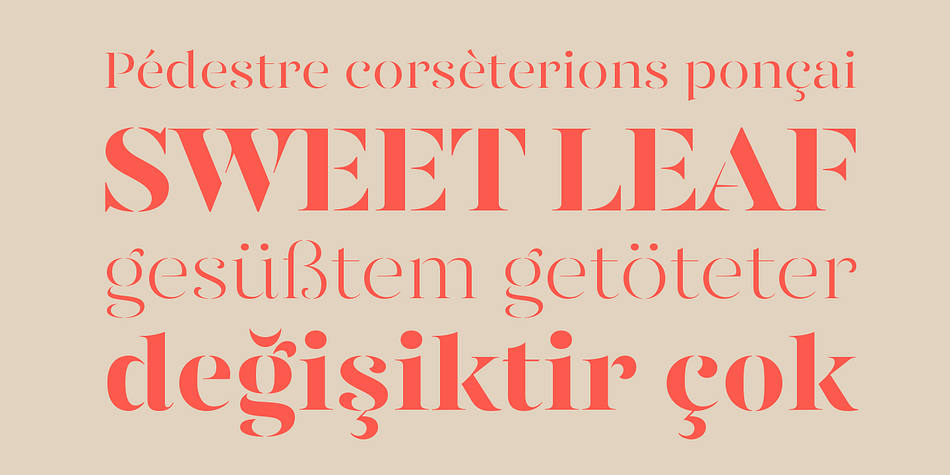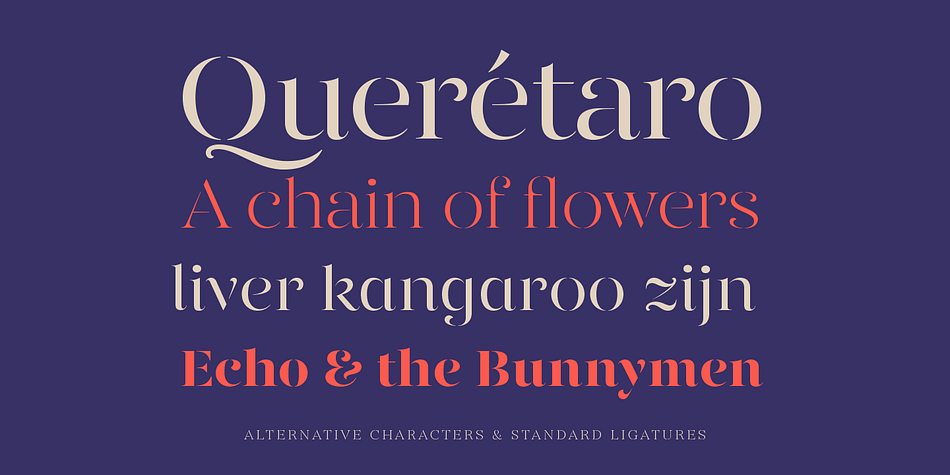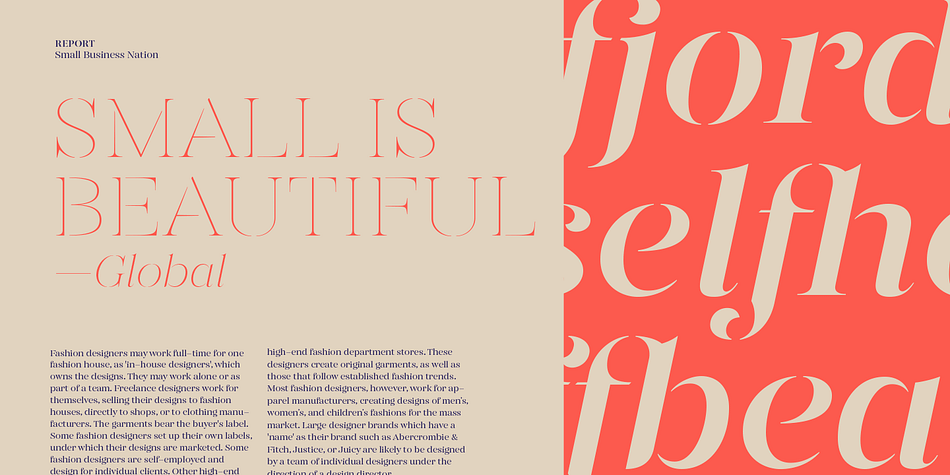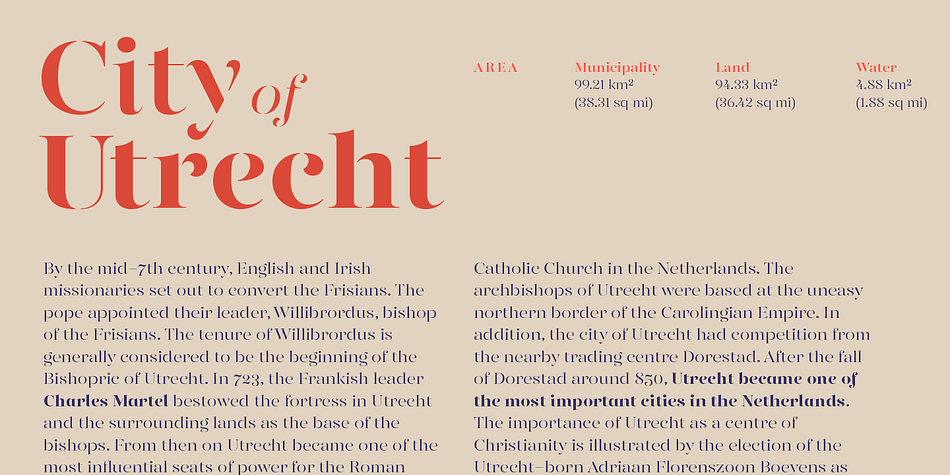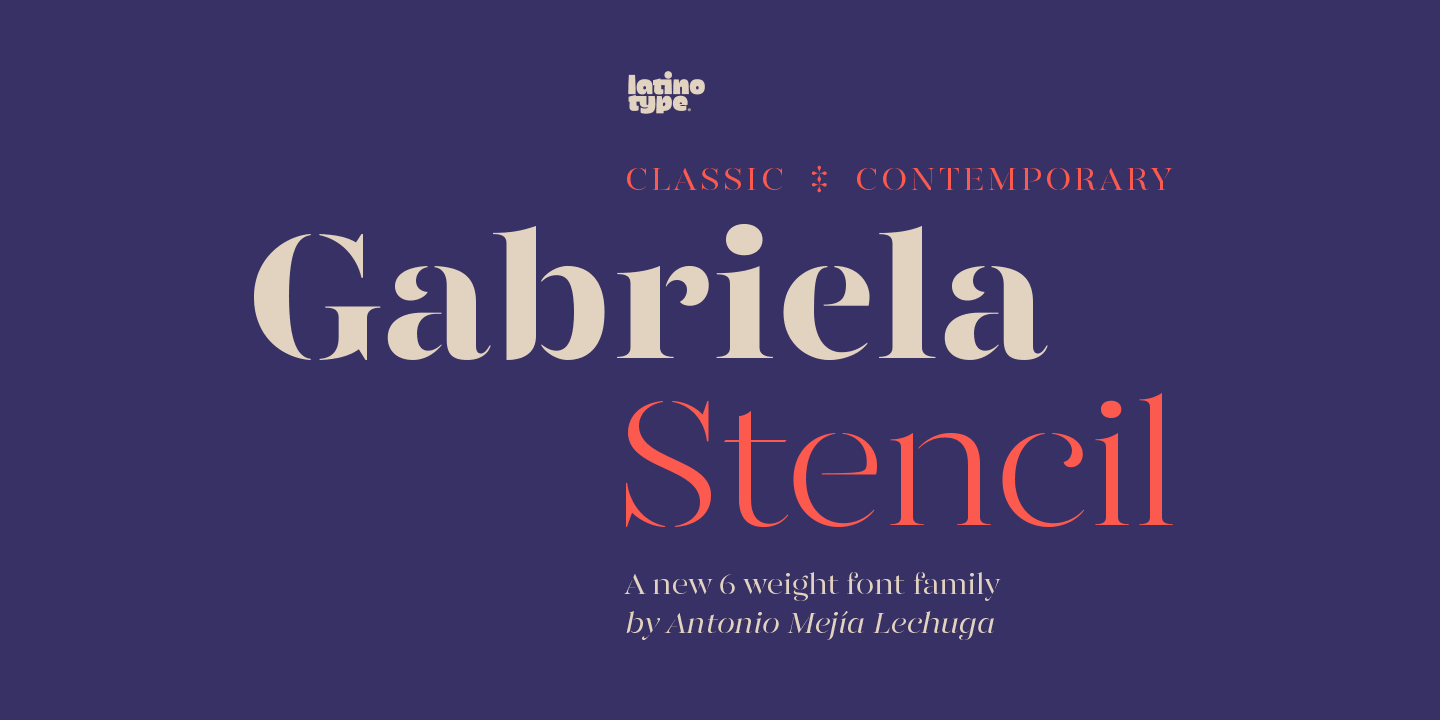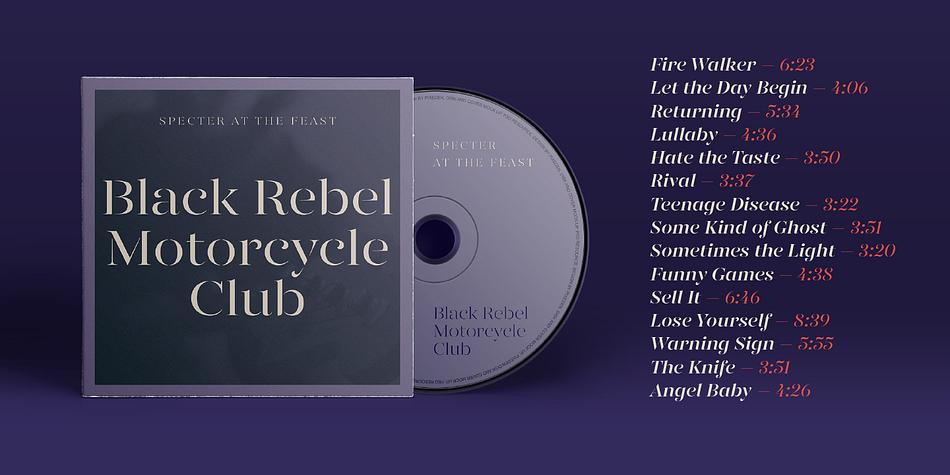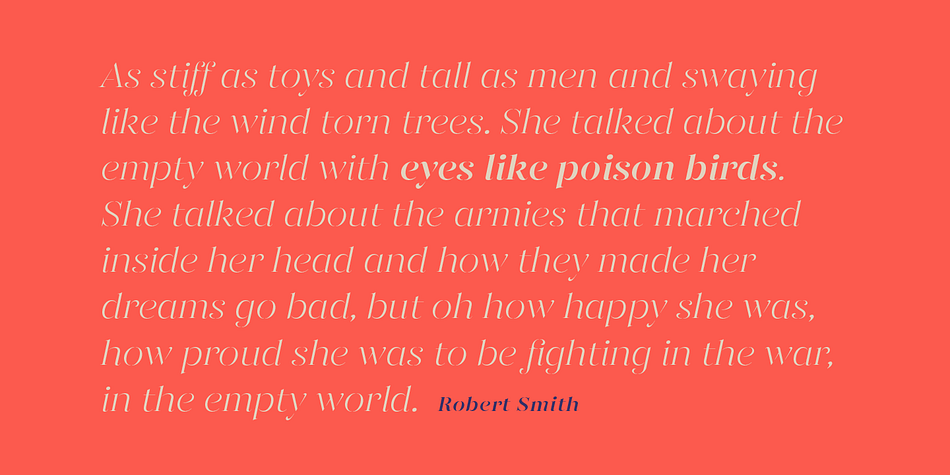
Designed by Antonio Mejía, Gabriela Stencil is a stencil font family. This typeface has twelve styles and was published by Latinotype.
Gabriela Stencil is a classic font family with a unique character designed by Antonio Mejía Lechuga in collaboration with Latinotype Team. This font, well-suited for headlines, has features that emphasise its modern and elegant personality, inspired by the style of the 19th Century Didone typefaces.
The x-height-sized at 50% of the cap height -and short ascenders and descenders make Gabriela Stencil a highly readable font and ideal for headlines, short text, branding and publishing projects. The family comes in 6 styles, from Thin to Black, plus matching italics and contains a 433-character set that supports 206 different languages.